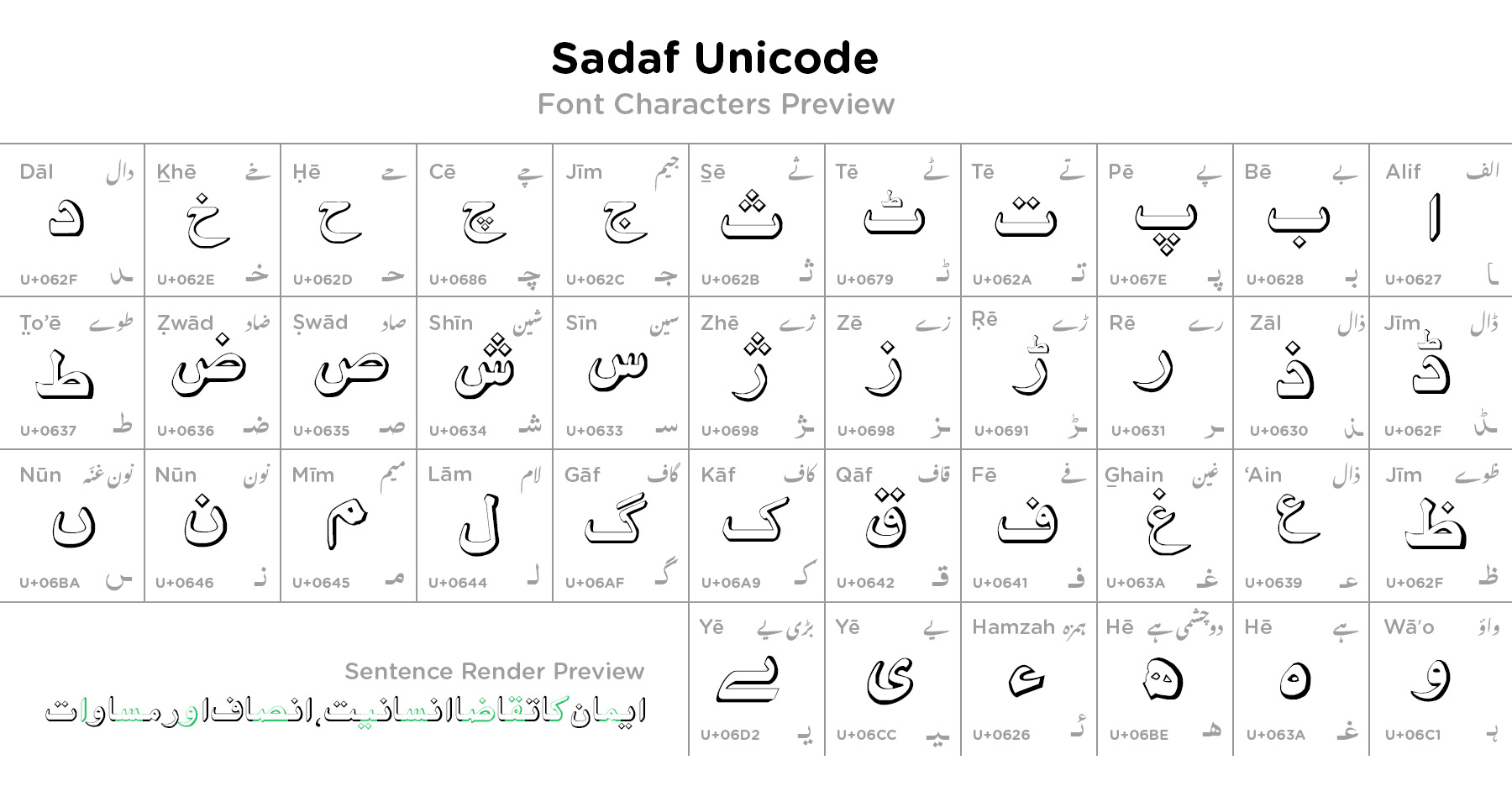
Sadaf Unicode, released on February 13, 2016, is a unique hollow font with a thick outline that look likes it shadow, designed by Syed Manzar Hasan Zaidi under Axis Softmedia Pvt. Ltd. Inspired by the Naskh script, it features a simple design with a horizontal emphasis, making it suitable for various applications. With 444 characters and 497 glyphs, it supports Arabic, Latin, Greek, and symbols across various Unicode blocks. Designed with legibility in mind, this font maintains high readability even on screens with smaller resolutions. Its bold and impactful strokes make it ideal for short texts and titles, ensuring the message stands out effectively.